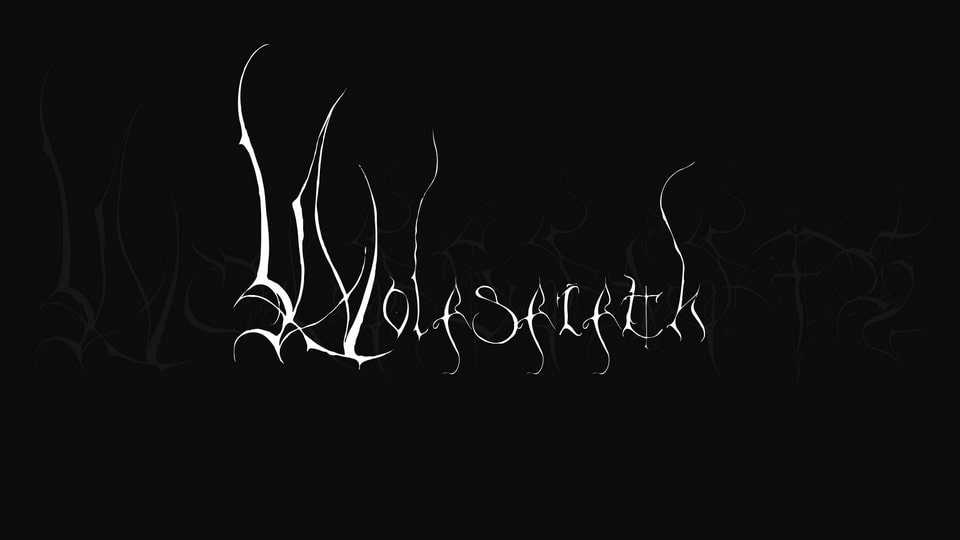
Download Wolfsfifth is the font that plunges you into the abyss of darkness with its menacing, gothic blackletter style. Each character is meticulously designed with jagged, angular strokes and an aura of malevolence.